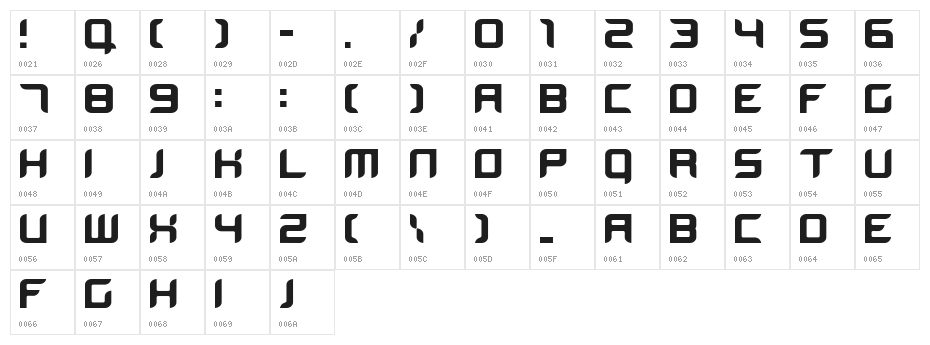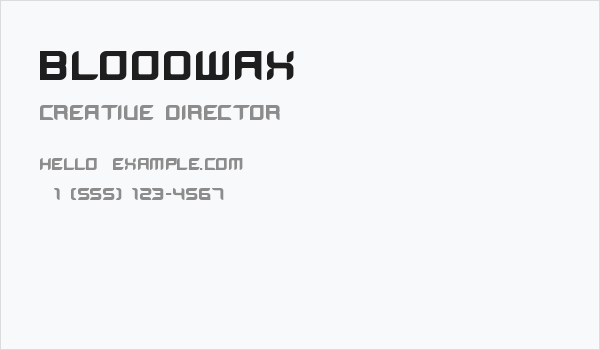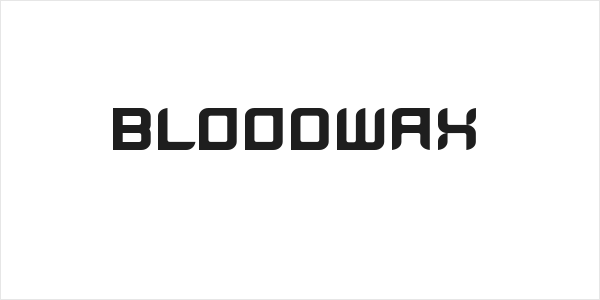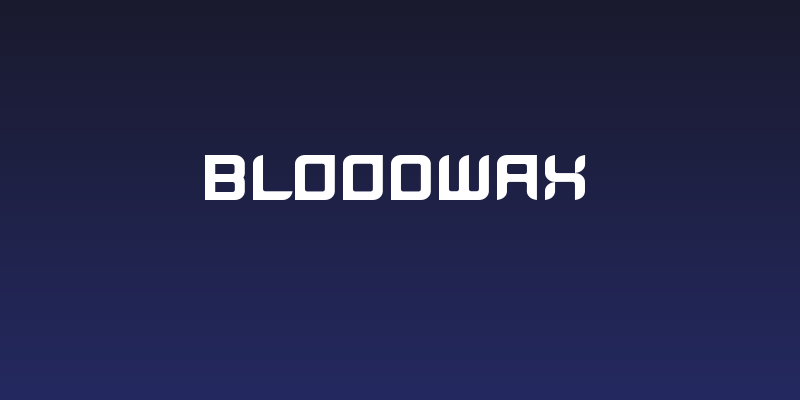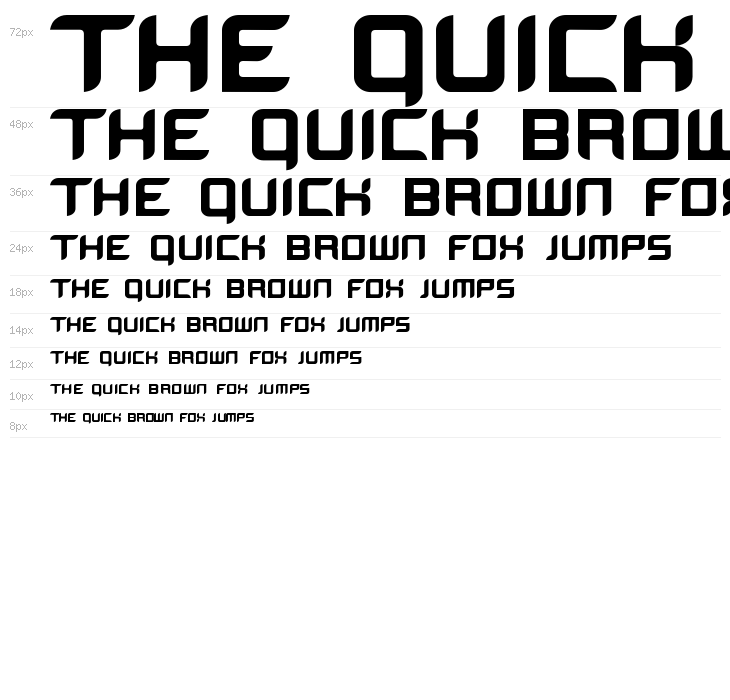
BloodWax Font
BloodWax Description
This font features a bold and futuristic design with a geometric structure. The characters are uniformly thick, with rounded edges and a consistent stroke width, giving it a modern and sleek appearance. The uppercase and lowercase letters maintain a uniform height, enhancing readability while adding a unique aesthetic. The numerals and special characters follow the same design principles, ensuring a cohesive look across all glyphs. The font's distinct style makes it suitable for projects that require a contemporary and edgy feel.
Proposed ProjectsIdeal for sci-fi themed designs, technology branding, video game titles, and modern advertising.